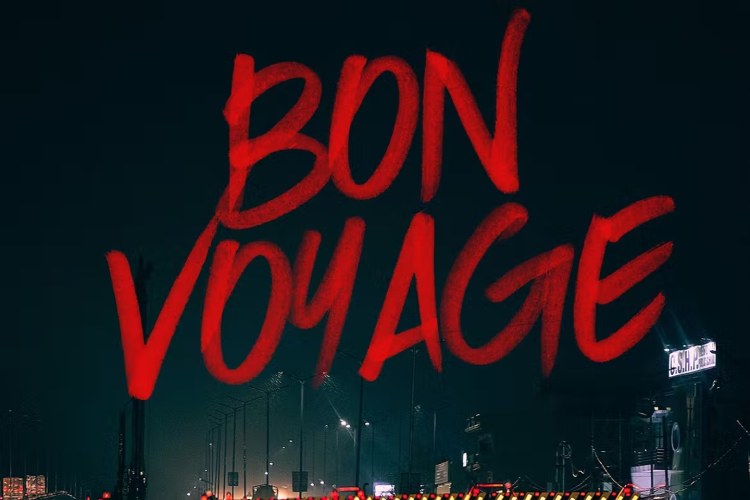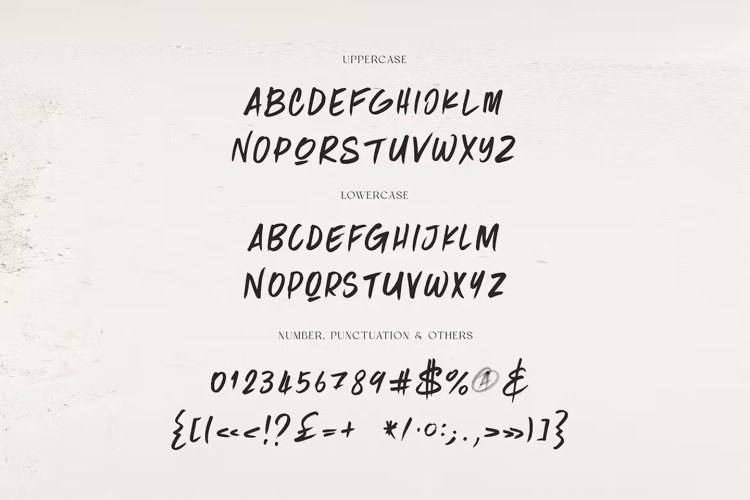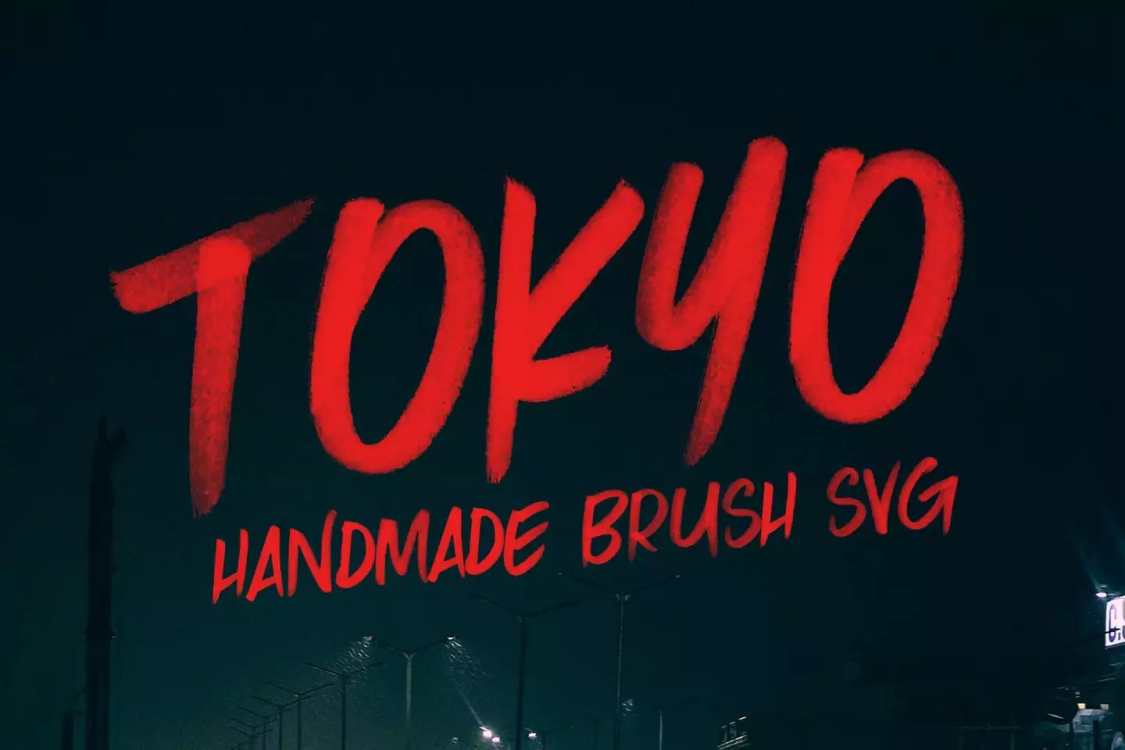
Tokyo Brush & SVG Font
Brush, rough or grunge style sans serif display font for your new projects. Handwritten with bold marker. Great for grunge, urban or artistic projects! color or SVG open…
Brush, rough or grunge style sans serif display font for your new projects. Handwritten with bold marker. Great for grunge, urban or artistic projects!
Where Tokyo Brush & SVG Font works best
Bold branding
Tokyo Brush & SVG Font brings energy to sports, fitness, streetwear and surf brands.
Merch & apparel
Brush lettering prints beautifully on T-shirts, tote bags and stickers.
Social media & thumbnails
Punchy brush strokes grab attention in stories, reels covers and thumbnails.
What is Tokyo Brush & SVG Font good for?